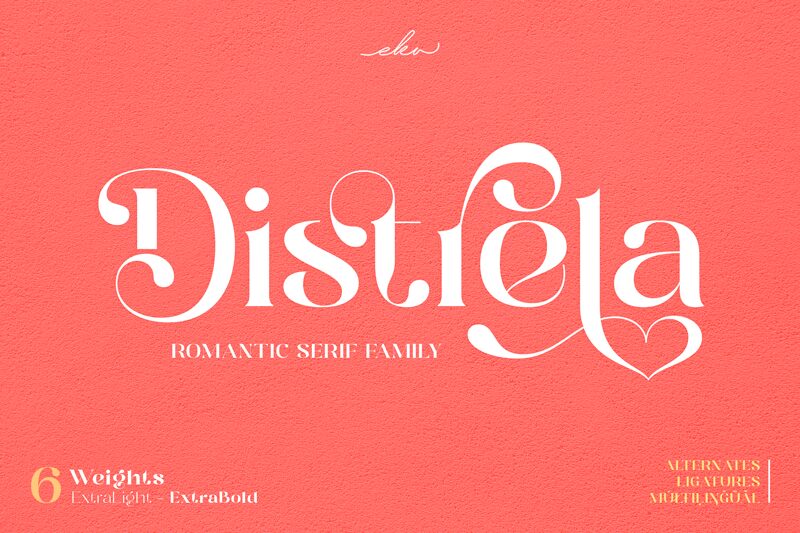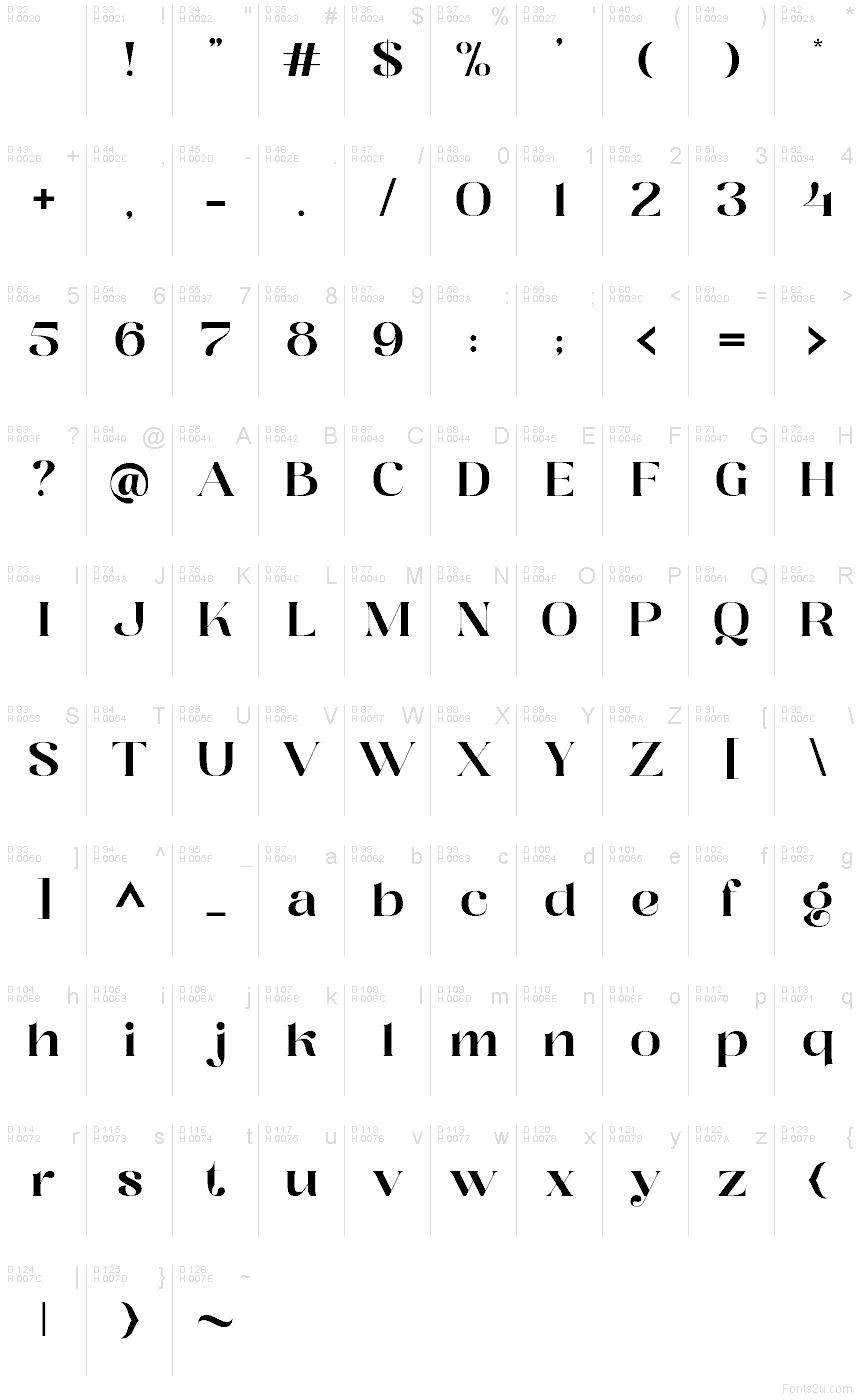
Distrela font by Eka Hermawan is a free serif typeface with an unmistakably dramatic silhouette. Its inky black strokes, sculpted curves, and swooping inner cuts give each letter a sense of movement, like fabric caught in a slow-motion turn. The sharp serif edges contrast with soft, almost liquid bowls, creating a luxurious tension that feels both editorial and artistic rather than stiff or traditional.
Using Distrela, headlines immediately take on a couture, high-fashion mood that works beautifully for magazine covers, beauty branding, perfume packaging, posters, invitations, and bold social media graphics. This free font shines when you give it room to breathe at larger sizes, then pair it with a calm, neutral sans serif for body text to let those expressive letterforms stay in the spotlight.